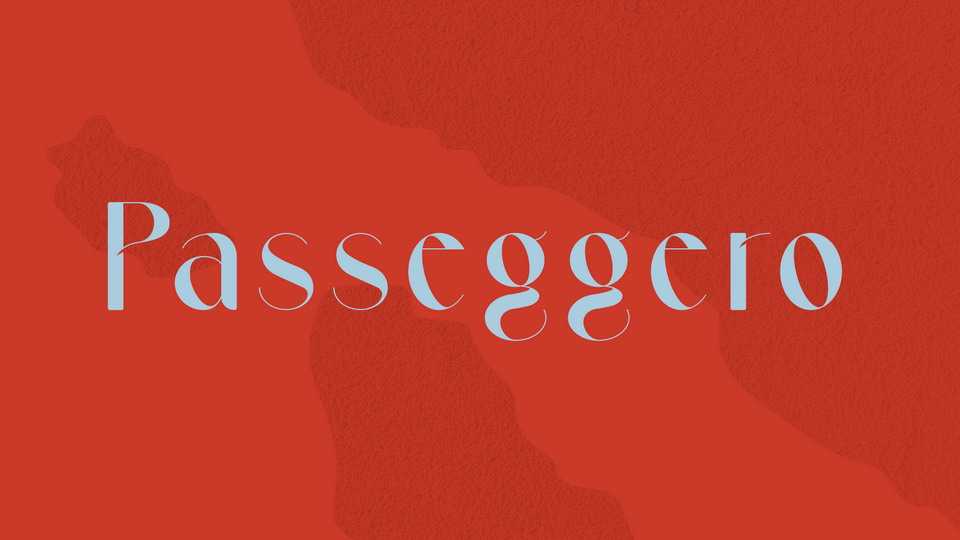
Download Passeggero font, a sans serif typeface inspired by the elegance of the movie Professione Reporter, by Michelangelo Antonioni, and the ennui in its places.
Designer: Sarah Horiuchi